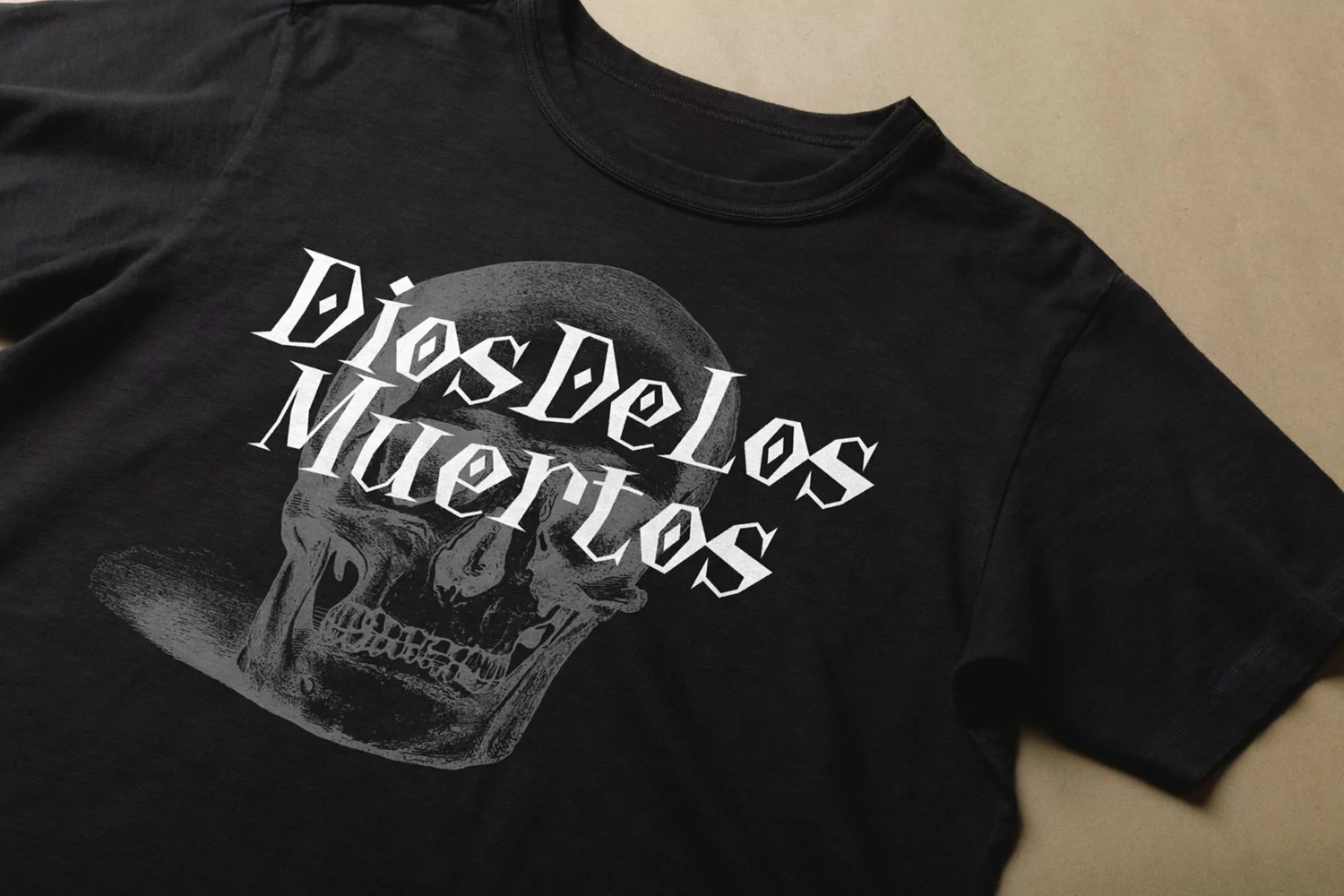
Web Font Pumkee is a horror display typeface. Perfect for display, poster, quotes, film, craft needs, book cover, business card, packaging, merchandise, branding, logo, logotype, header, title, and many more.